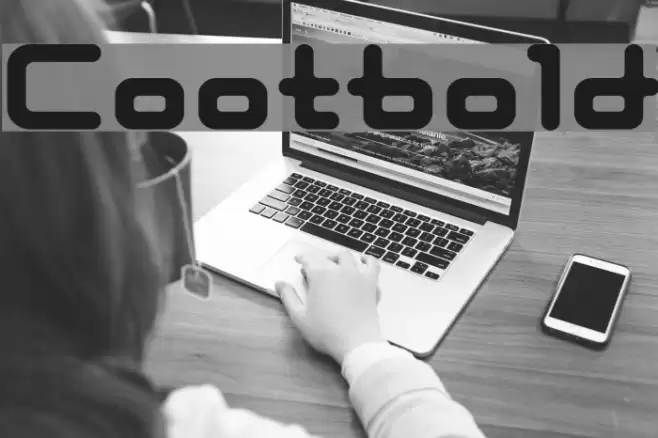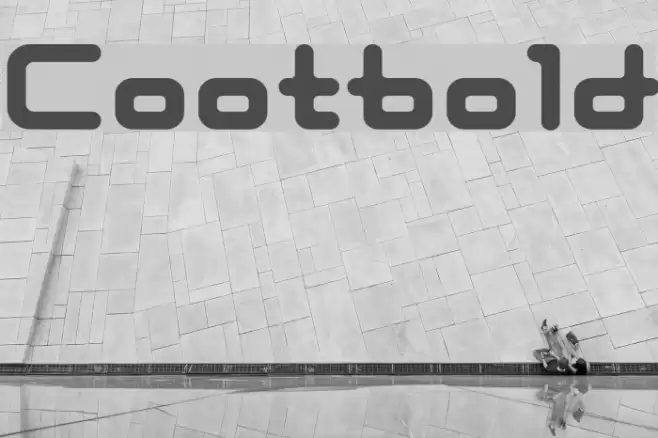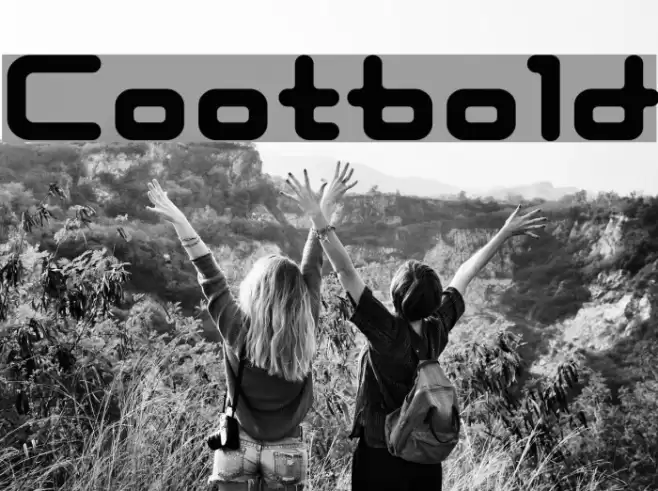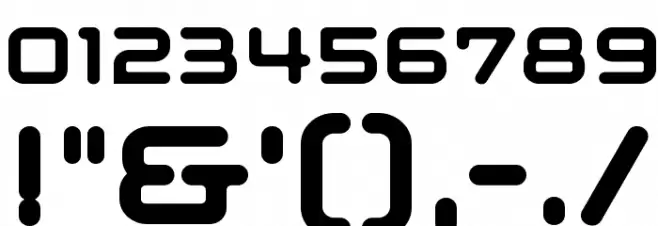
Cootbold Font
Cootbold Description
This font features a bold, rounded style with a futuristic and geometric aesthetic. The characters are uniformly thick, giving it a strong and sturdy appearance. The rounded edges soften the overall look, making it approachable yet modern. The uppercase and lowercase letters maintain a consistent height, contributing to a cohesive design. The numerals and special characters follow the same design principles, ensuring uniformity across all glyphs. This font is ideal for projects that require a modern and tech-savvy feel, while still being friendly and accessible.
A bold, rounded, and geometric font with a modern, futuristic style from Uncategorized fonts.
- Proposed Projects: Ideal for technology branding, modern logos, digital interfaces, and futuristic posters.
- Use Case: Logos, Headlines, Digital Interfaces